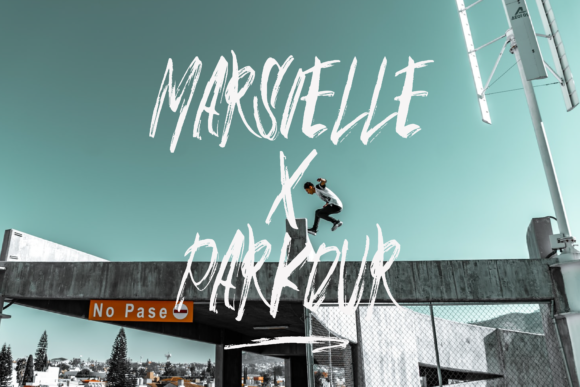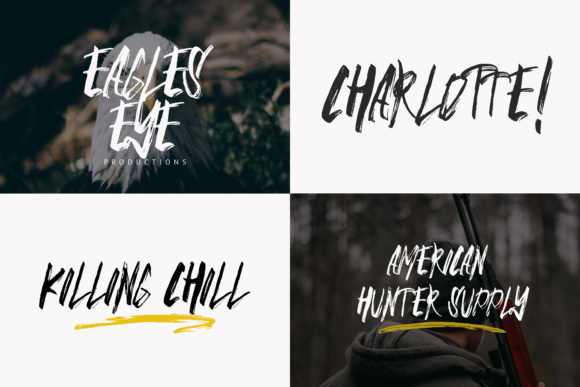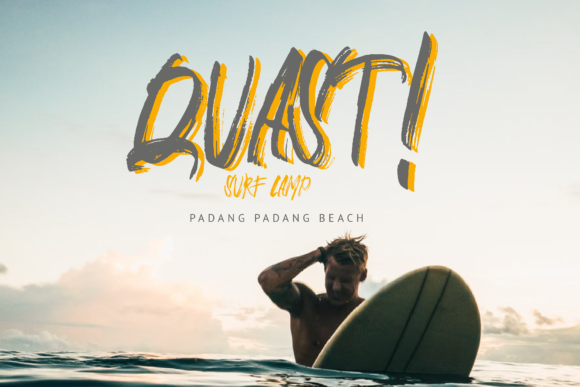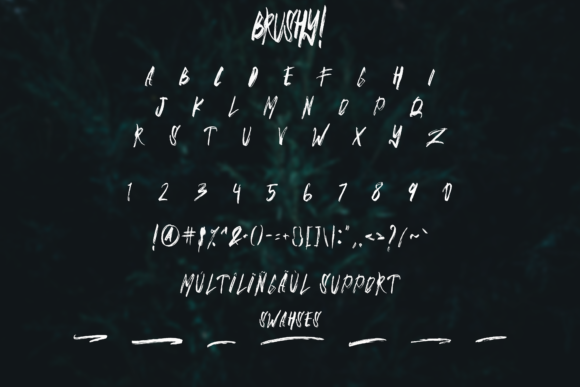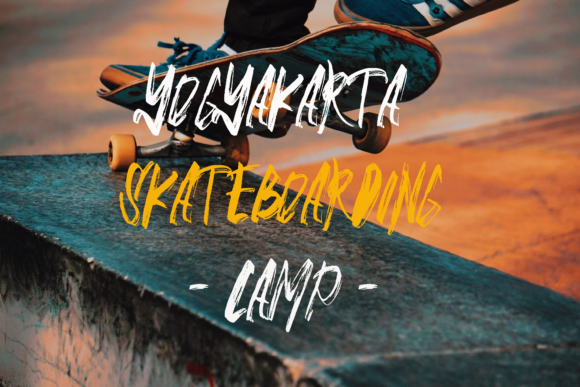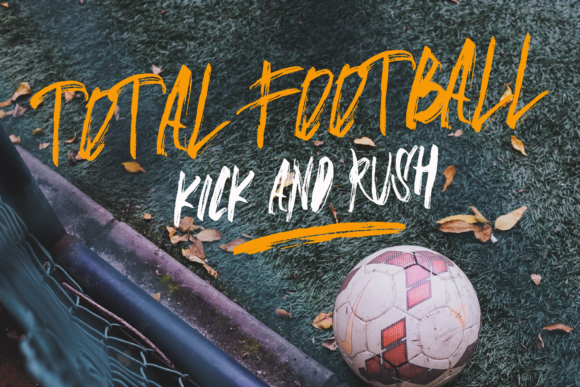
Introducing Brushy Font: Elevate Your Designs with a Stylish Handwritten Touch
Are you on the hunt for a font that can instantly elevate your design game? Look no further than Brushy Font! Brushy is an incredibly stylish and cool handwritten font that will turn any design idea into a true standout! With its unique blend of elegance and playfulness, Brushy Font is perfect for designers and crafters looking to add a personal touch to their projects.
The Characteristics of Brushy Font
So, what makes Brushy Font so special? For starters, its handwritten style gives it a warm and inviting feel that’s perfect for a wide range of design applications. From wedding invitations and greeting cards to social media graphics and branding materials, Brushy Font is versatile enough to adapt to any design need. Its strokes are fluid and dynamic, with a subtle texture that mimics the look of brush calligraphy.
Why Choose Brushy Font?
There are many reasons why Brushy Font stands out from the crowd. Here are just a few:
- Unique Style: Brushy Font boasts a one-of-a-kind style that’s sure to grab attention. Its distinctive look and feel will set your designs apart from the rest.
- Ease of Use: Brushy Font is incredibly easy to use, even for those who are new to design. Its clean lines and simple letterforms make it a breeze to work with.
- High Versatility: Whether you’re designing for print or digital, Brushy Font adapts seamlessly to any medium.
- Emotional Connection: The handwritten nature of Brushy Font creates an emotional connection with your audience, making your designs more relatable and engaging.
Design Applications for Brushy Font
The possibilities are endless when it comes to using Brushy Font in your designs. Here are some popular applications:
- Wedding and Event Design: Create stunning wedding invitations, save-the-dates, and event branding with Brushy Font.
- Branding and Packaging: Add a touch of personality to your brand with custom packaging, labels, and business cards.
- Social Media Graphics: Elevate your social media presence with eye-catching graphics, quotes, and promotional materials.
- Stationery and Paper Crafts: Use Brushy Font to create beautiful stationery sets, journals, and paper crafts.
Tips for Getting the Most Out of Brushy Font
To truly make Brushy Font shine in your designs, consider the following tips:
- Experiment with Colors: Brushy Font looks great in a variety of colors, so don’t be afraid to experiment and find the perfect hue for your design.
- Mix and Match: Combine Brushy Font with other fonts and design elements to create a unique look that’s all your own.
- Play with Texture: Add an extra layer of depth to your design by incorporating textures and patterns that complement Brushy Font.
In conclusion, Brushy Font is a game-changer for designers and crafters looking to add a stylish and cool handwritten touch to their projects. With its unique style, ease of use, and high versatility, Brushy Font is sure to become a staple in your design toolkit. So why wait? Download Brushy Font today and start creating stunning designs that stand out from the crowd!